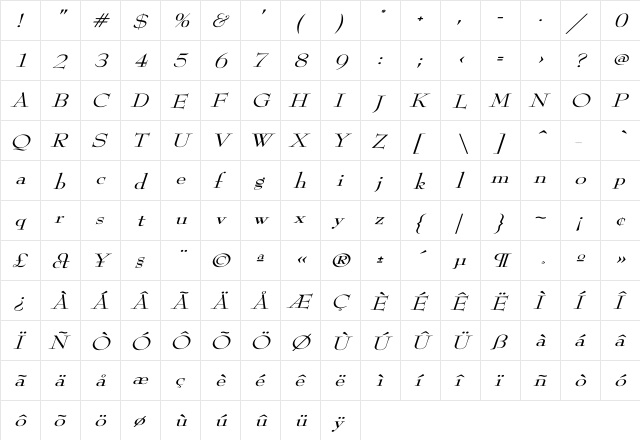
ReedFont Wd italic Italic
Design Context for ReedFont Wd italic Typeface
ReedFont Wd italic offers clean, dependable letterforms without strong stylistic allegiance, making it a practical choice for designers who need flexibility. The dynamic lean of this cut emphasises speed and emphasis in any layout.
Pro Tip: Try ReedFont Wd italic for annotation and caption copy alongside an upright companion — the contrast in angle creates a dynamic but ordered typographic system.